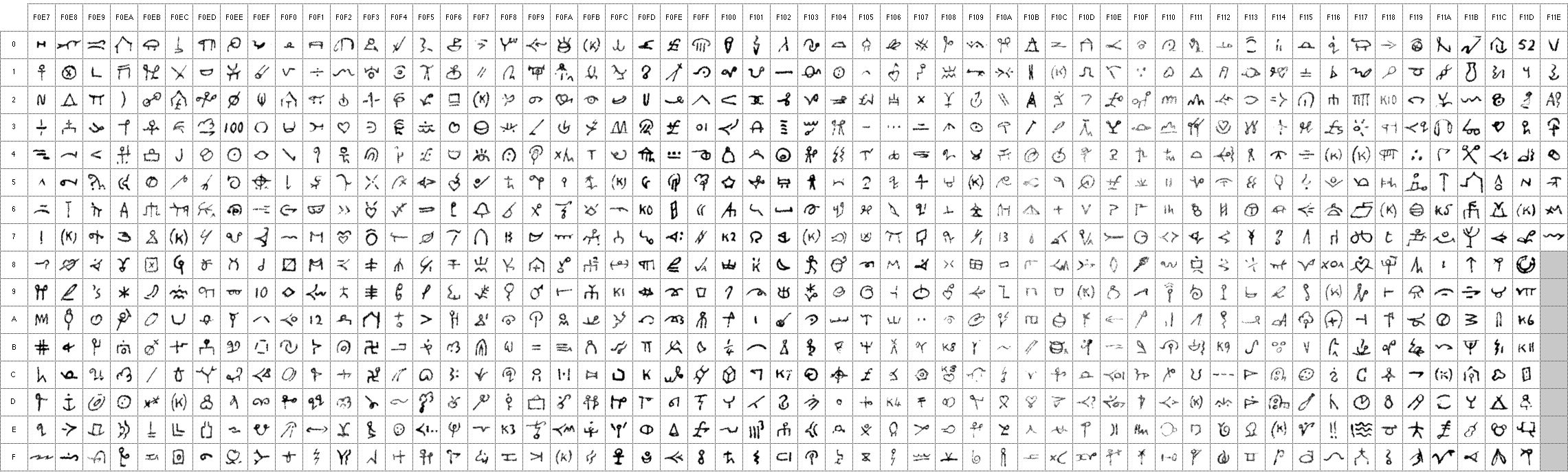
Following World War II and into the late 1950s, an English artist named John Edward Williams devised an international language based on pictograms. He named his new language "Pikto". He published two books: The Basis of Pikto, which listed these pictograms, and The First English-Pikto Dictionary. His influences were studies of previous constructed languages (notably Volpük, Esperanto, and Ido) and analyses of basic vocabulary in a language such as the 850 words in Charles Ogden's "Basic English". He also considered categories of words, greatly reducing the approximately 1000 categories in Roget's Thesaurus.
Like other constructed languages before it, Pikto was designed with the aim of helping to create harmony among nations through a common language. In particular, John Williams created a vocabulary of basic words that would be easy to understand for native speakers of English, French, German, and Russian. Williams dedicated The Basis of Pikto "to the masters of wisdom and to the peoples of the world".
Williams operated his own printing press to retain full artistic control over his work.
He published his Pikto books while at 8 Meadow Studios, Bushey, England, UK. In the 19th century, Sir Hubert von Herkomer built Meadow Studios for his art school. The studios became an artist colony that gradually fell into disrepair. By the 1970s the buildings had been condemned and were finally demolished. Today the location has become a retirement community named Meadowcroft.
The location and era of Pikto's creation had influence on its pictographs. In the aftermath of World War II, Pikto contains glyphs for fascism, communism, and tyrant. Originating in England, pictograms related to money or gains have the British pound sterling as a base. Yet there are also glyphs for wigwams and wombats!
Sixty years after their creation, the full story behind the choosing of these particular words and their associated pictograms might never be known. Unifont is probably the first font to contain these glyphs. If nothing else, having them in Unifont could simplify future discussion of Pikto.
There are 888 Pikto pictograms. In these, John Williams tried to capture the vocabulary essential to forming a useful international language. This makes Pikto an interesting study as a Constructed Language ("ConLang"). His introductory book contained over 2000 root words formed from the basic pictogram foundation. His later English-Pikto dictionary extended this to about 35,000 words.
Andrew Miller obtained a copy of John Williams' Pikto book, scanned the glyphs, and typed in the text in the "Pikto" column in the table below. He also discovered the intriguing history of Meadow Studios mentioned above.
Paul Hardy and Johnnie Weaver drew the Unifont Pikto glyphs based upon Andrew Miller's scanned images.
A Brief Introduction to Pikto Grammar
The chart of symbols in the next section will make more sense with an overview of Pikto grammar. Pikto uses suffixes to indicate the type of word (noun, verb, adjective). Quotes are from The Basis of Pikto.
- Verbs: There are two tense forms: verbs ending in "N" are present tense or indefinite; verbs ending in "D" are past tense. Future tense is indicated with the word "futuri" following the present tense form of the verb. Verbs end in "N" or "D" after vowels, and end in "IN" or "ED" after consonants.
- Nouns: If a noun can be either concrete or abstract, concrete nouns add "it" or "un" to the root form, and abstract nouns add "al". "Un" means "a" or "one". "La" means "the". "Most concrete nouns end in '-nio' or '-ting'." Plural nouns add "-s" or "-es".
- Possessive: The possessive form is created by adding "-z" or "-ez", or by adding the word "de". Example: "La residenc de la konsul."
- Adjectives and Adverbs: Adjectives and adverbs use a "-i" ending of a noun ending in a consonant or "-li" after a noun ending in a vowel. There are exceptions to this rule.
- In General: "All words relating to actions and states have verbal form, whether used as verbs, adjectives or nouns, and all inherent qualities, with few traditional exceptions[,] have adjectivial terminations (including adverbs). Thus, participles are treated as verbs, as in English, and other parts of speech with double functions retain the form adopted for their intrinsic meaning. Pronouns such as 'Our' (Misez) do not take 'i'—the adjectivial termination, and nouns used as adjectives are unchanged; compounds such as 'Fire-eater' and 'Office-boy' being written, 'Flam-asimilanist' and 'Buro-yungadam'.
- Further examples:
- BIT: a hit (noun); BITIT: a bat (noun); BITIN: to hit (verb).
- TIRANIO: tyranny (noun); TIRANI: tyrannical (adjective); TIRANIN: tyrannise (verb).
- With symbols, a dot above a symbol indicates the verb form (a "-in" suffix) according to The First English-Pikto Dictionary.
There is more to Pikto grammar, but the above should be adequate to understand the parts of speech in the Table of Pikto Glyphs below.
Table of Pikto Glyphs
The table below starts at the first code point reserved for Pikto in Michael Everson's ConScript Unicode Registry (CSUR). The glyphs are in Unicode Plane 15, which is reserved as a Private Use Area (PUA) range. Andrew Miller made the code point assignments based on the order in which the 888 Pikto symbols were listed in John Williams' book.
U+0F114F | ![]() | SOFT | Soft | Musical sign for Pianissimo [this is a single italic "p", which just means "piano" (soft); two italic "p"s would mean pianissimo] |
U+0F1150 | ![]() | SOL | Sun | The Sun, rising or setting on the horizon |
U+0F1151 | ![]() | SOLIDI | Solid | Something resting on a firm foundation |
U+0F1152 | ![]() | SOLO | Alone, solo | Symbol for group of persons, but with "1" inside |
U+0F1153 | ![]() | SONATA | Sonata | Stylised musical notes |
U+0F1154 | ![]() | SORT | Kind, sort | Three lines of two kinds, alternating short, long, short |